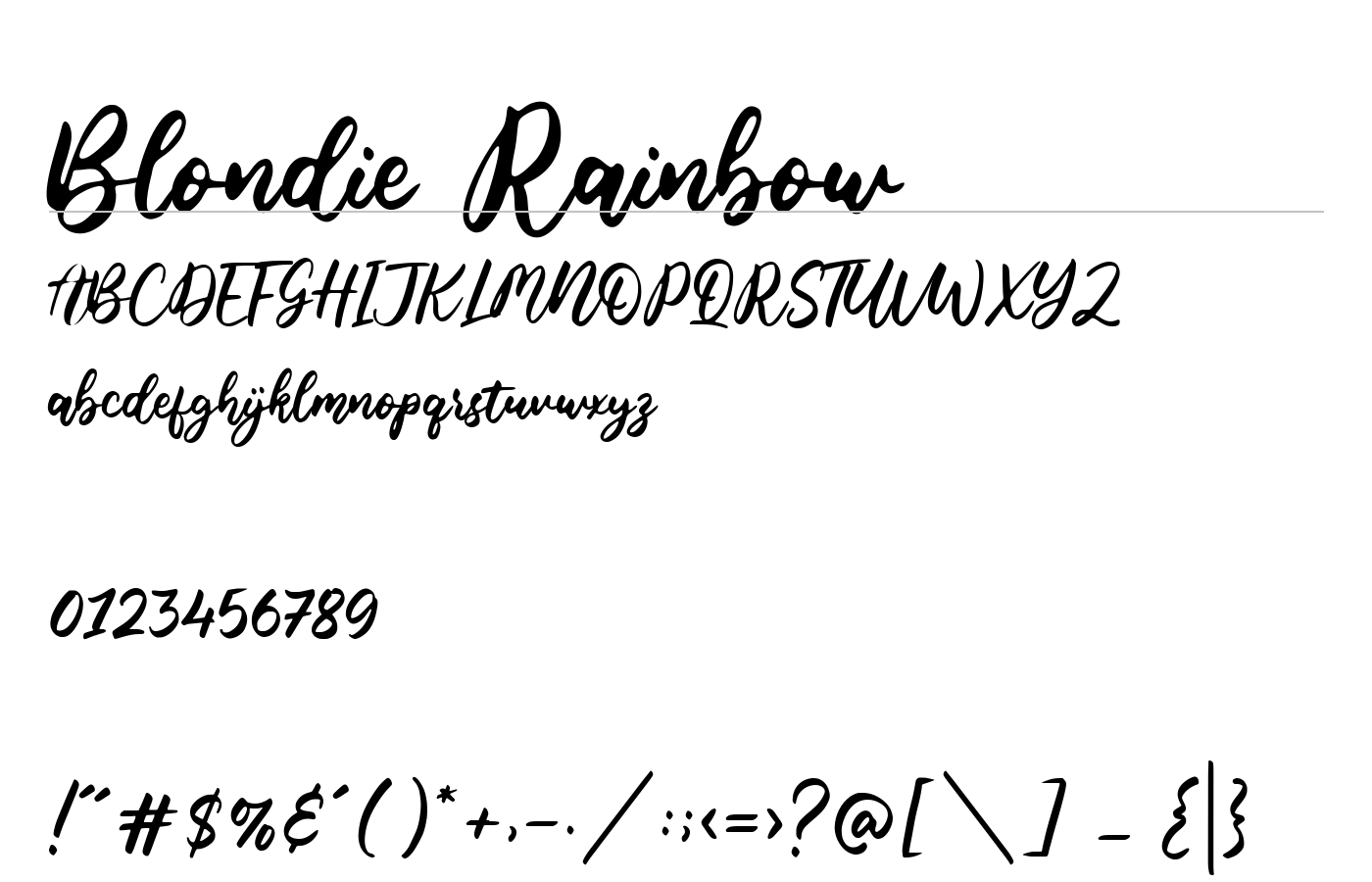
Blondie Rainbow is a lively and stylish script font that captures a friendly and elegant hand-drawn feel. Its flowing strokes and smooth curves create a casual yet refined look, making it perfect for creative branding, invitations, and playful editorial designs. This font works well where a personal and approachable touch is needed, especially in contexts like fashion, lifestyle, and artistic projects.
Blondie Rainbow Font
About Blondie Rainbow Font